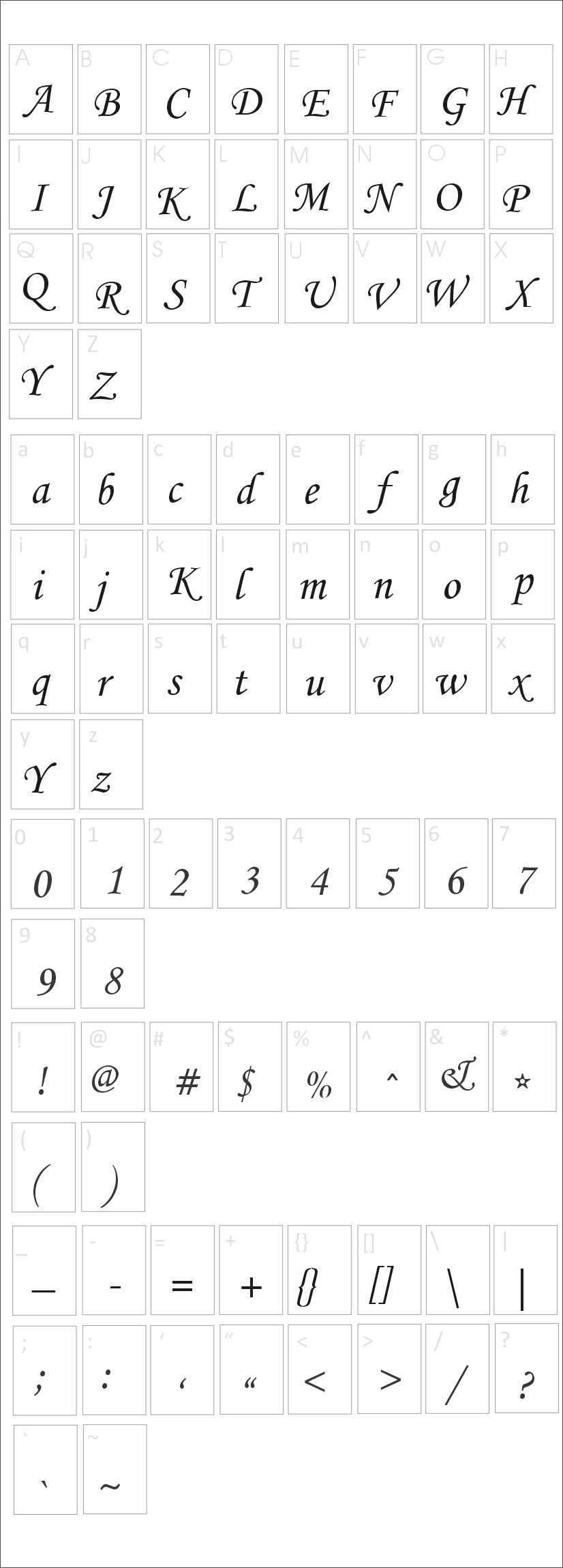
NK_Monotype Corsiva is a renowned font family known for its flowing lines, italicized style, and elegant appearance. Inspired by the cursive handwriting of the 18th century, NK_Monotype Corsiva is perfect for adding a touch of sophistication and romance to your designs.
Key Features of NK_Monotype Corsiva Font Family:
- Cursive Style: This font’s flowing lines and connected letters create a handwritten effect.
- Elegant Appearance: The font’s graceful and refined design adds a touch of sophistication to your projects.
- Versatile Usage: This font can be used for various projects, including branding, website design, creative writing, and packaging.
- Multiple Weight Options: The font family includes various weight options (e.g., Regular, Bold, Italic), allowing you to find the perfect style for your needs.
Uses for NK_Monotype Corsiva Font Family:
- Branding: Use this font for logos, business cards, and other branding materials to create a timeless and elegant identity.
- Website Design: Incorporate NK_Monotype Corsiva into your website design for a touch of sophistication and romance.
- Creative Writing: Pair NK_Monotype Corsiva with your creative writing projects to add a handwritten and personal feel.
- Packaging: Use this font for product packaging to create a visually appealing and memorable design.